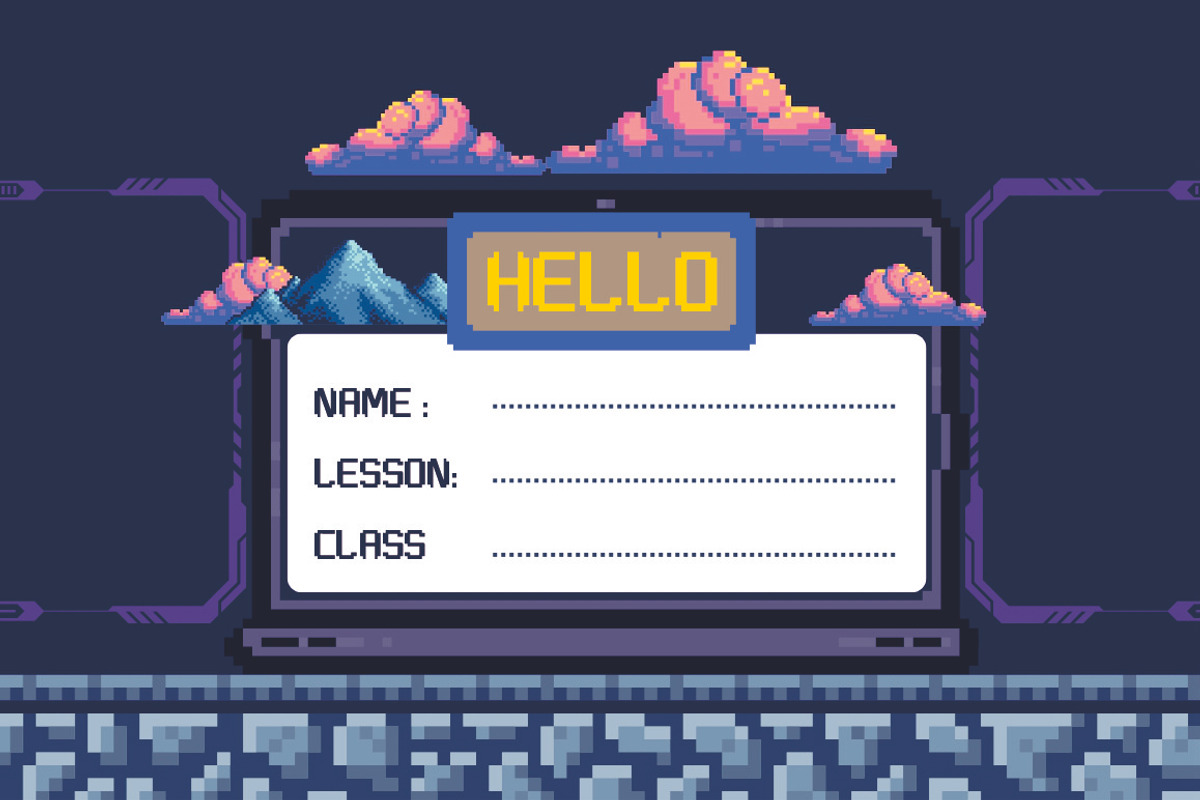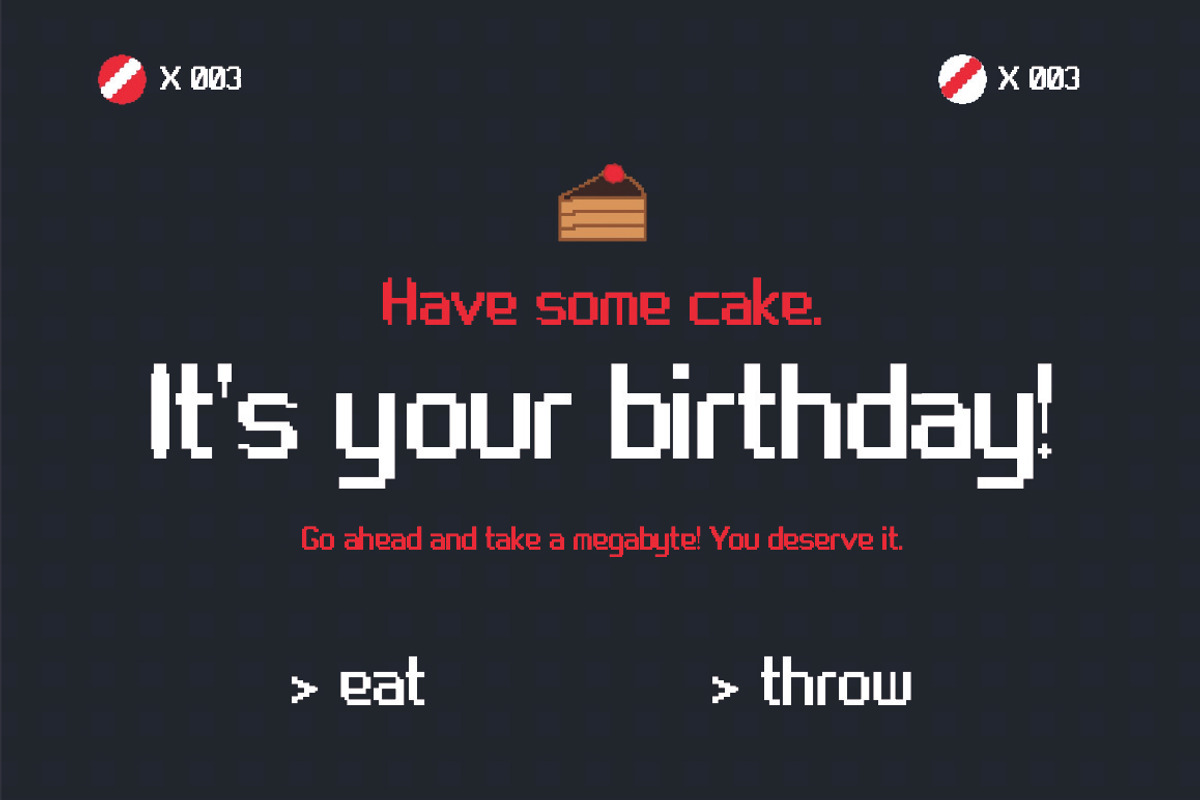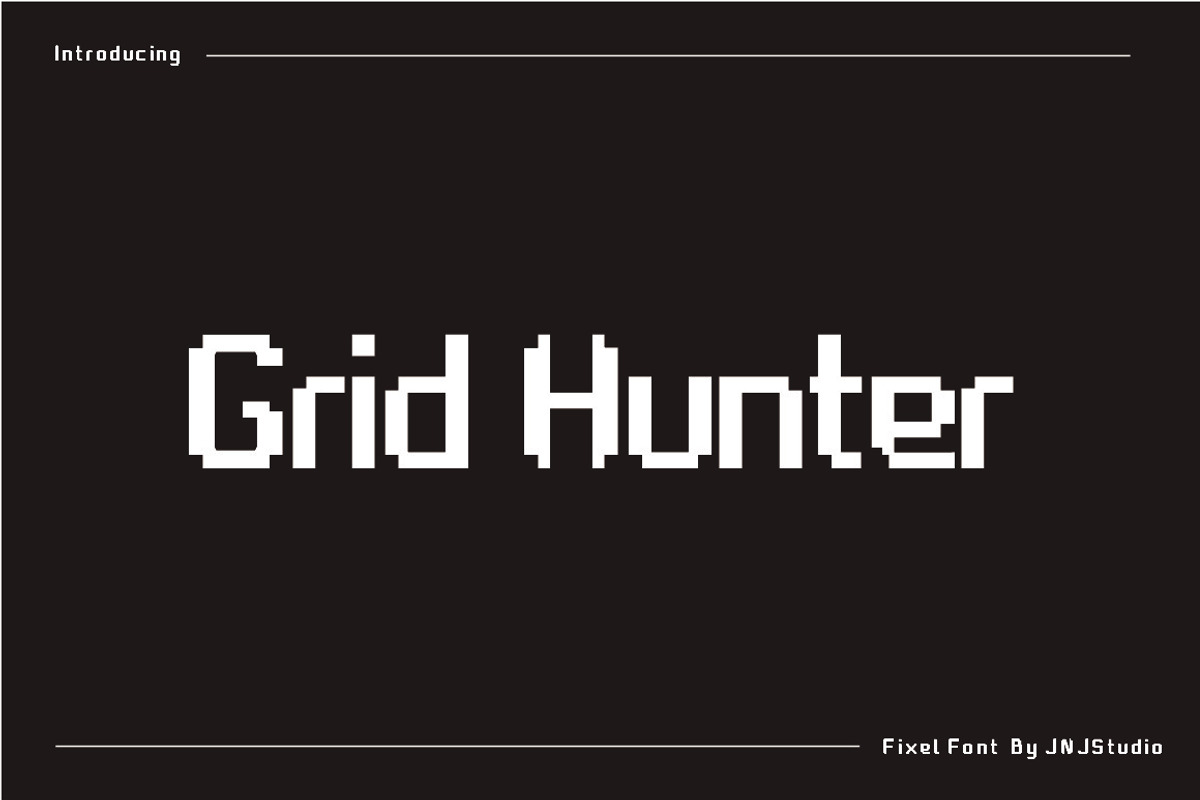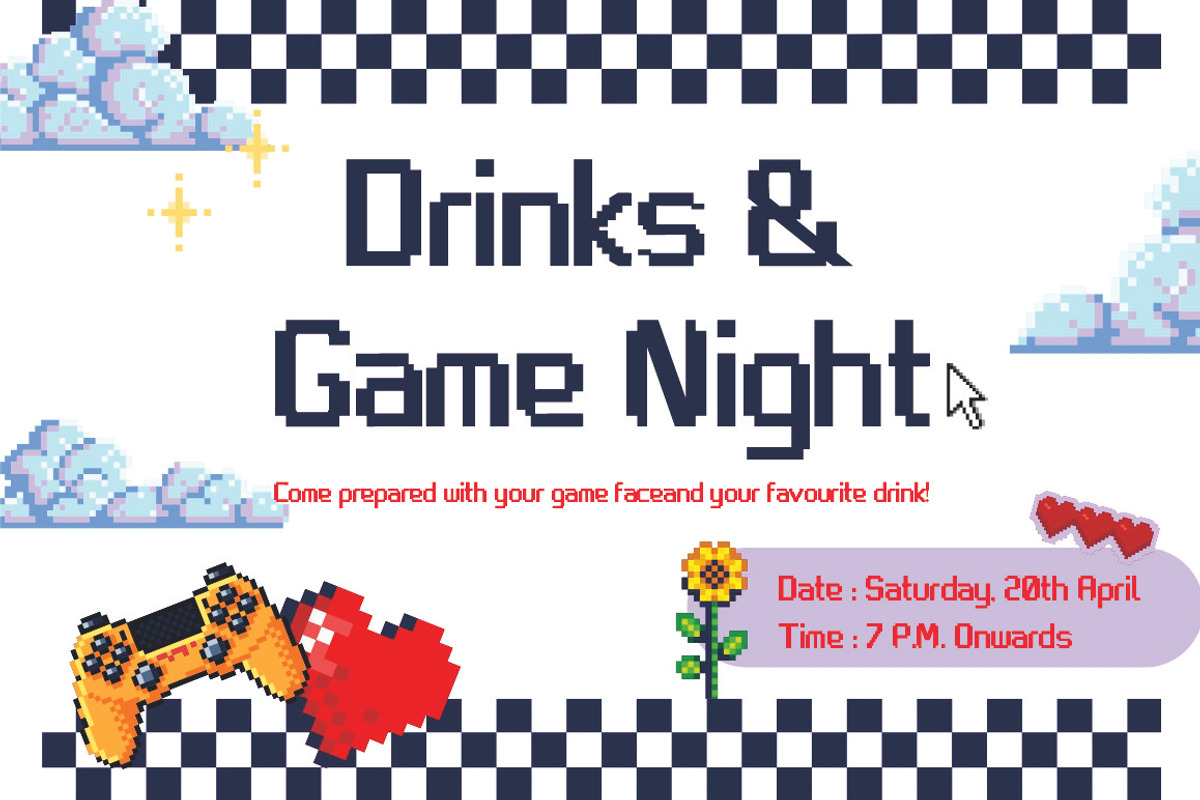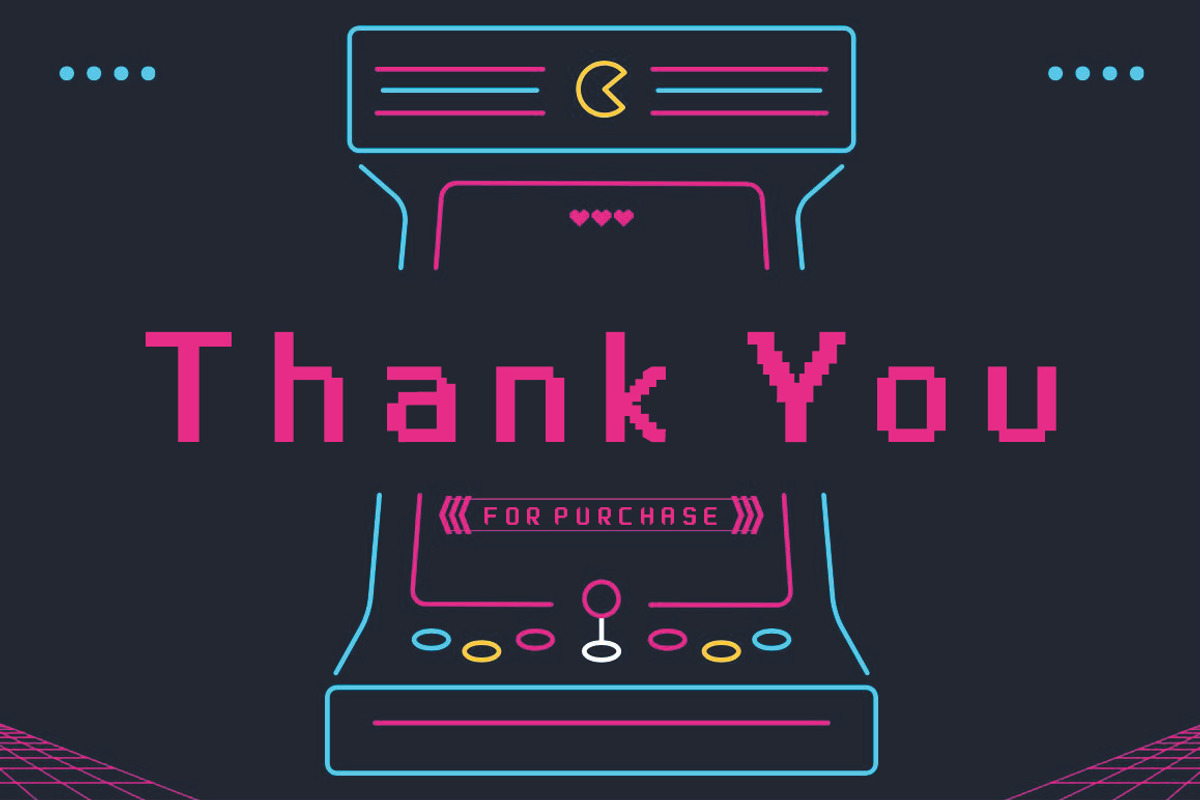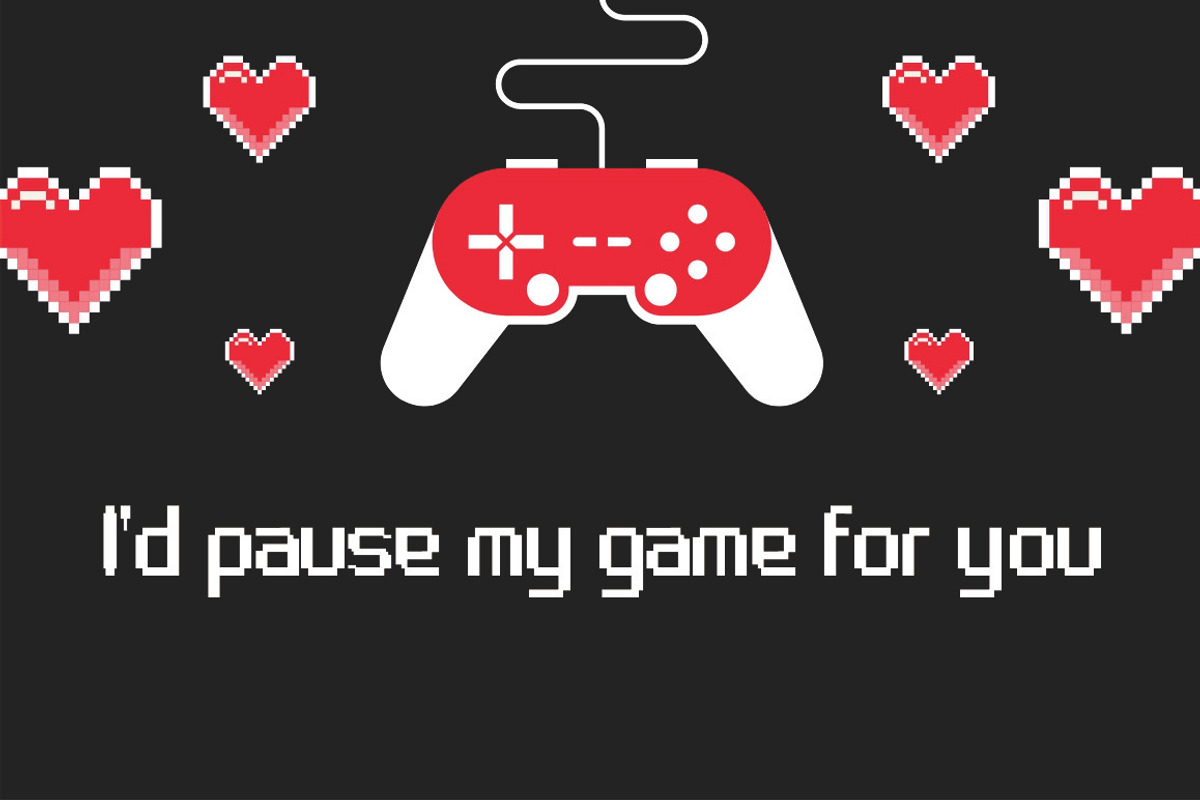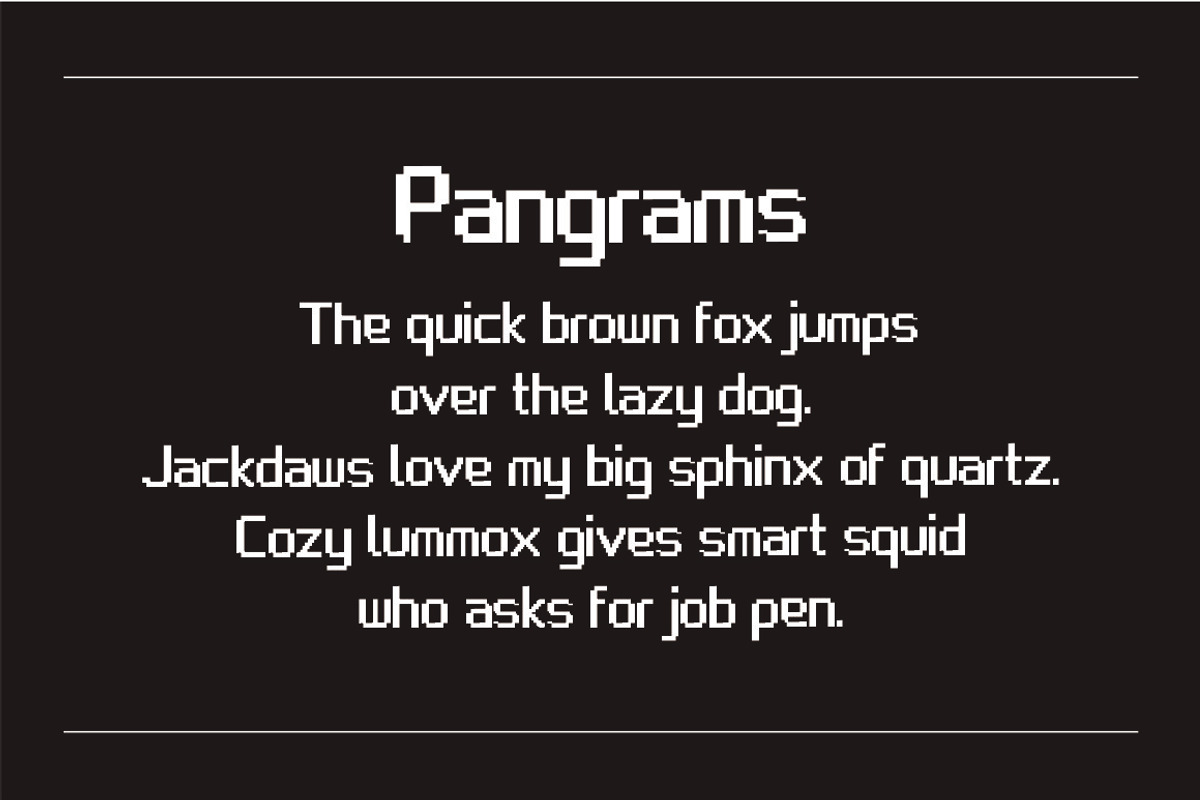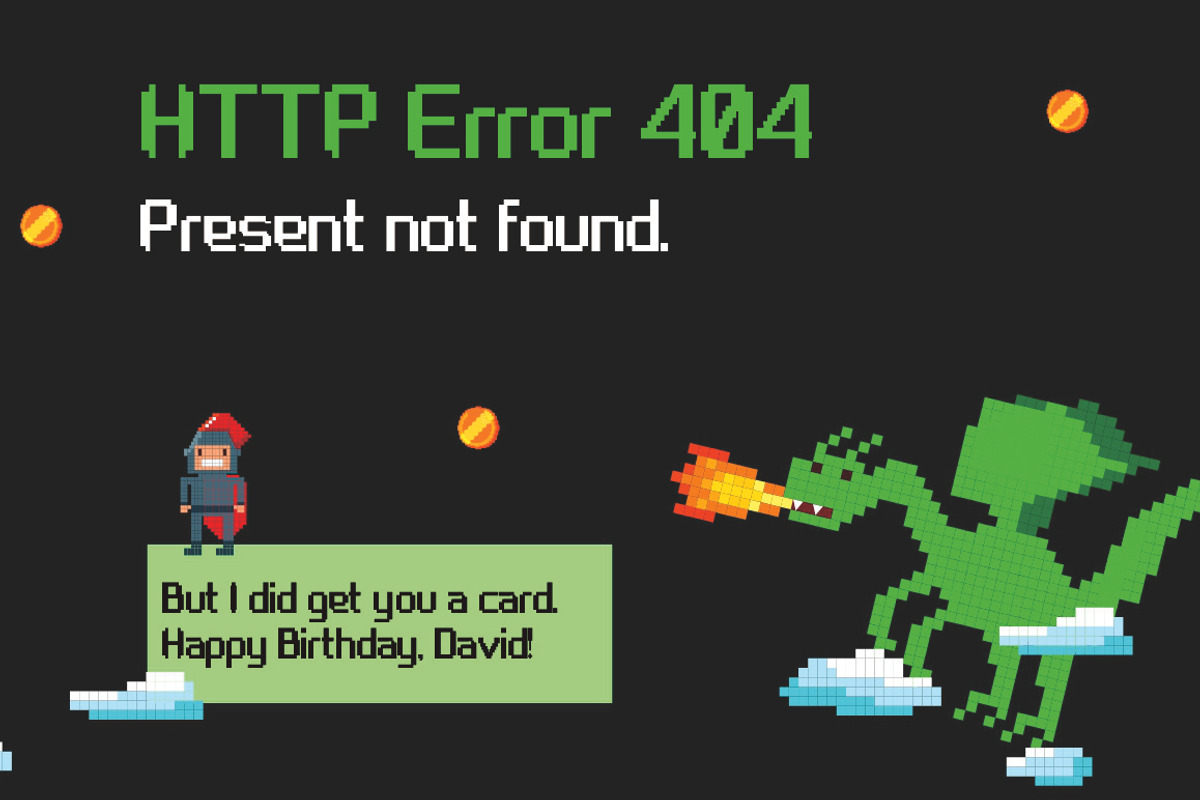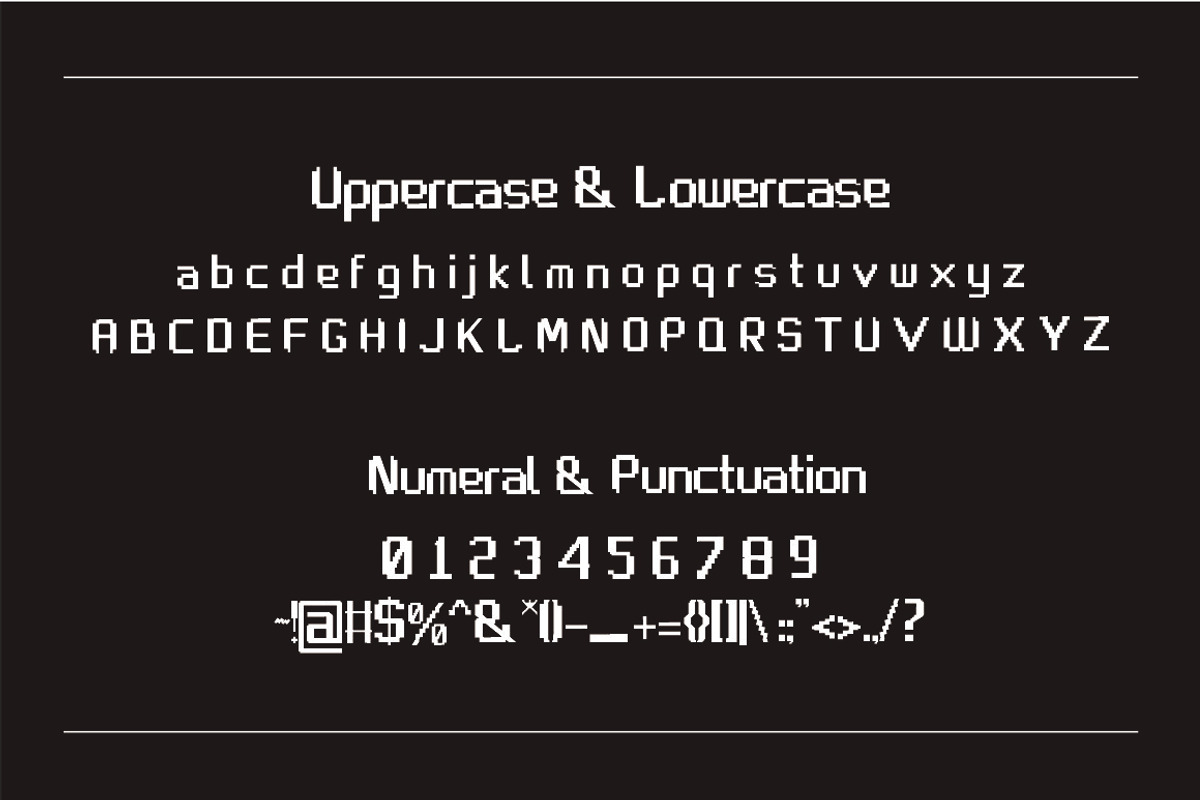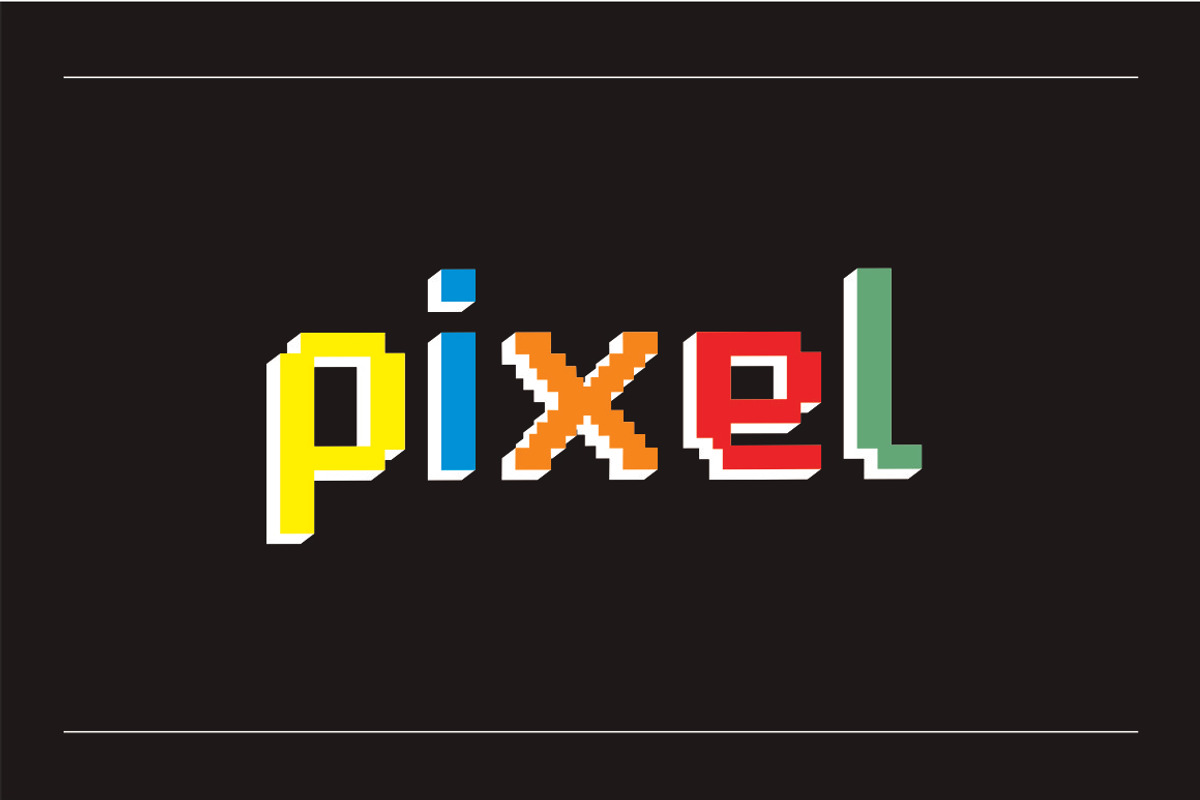
Grid Hunter Pixel Font
Grid Hunter is a bold pixel-style typeface inspired by retro arcade visuals and modern digital grids. Built with sharp edges and precise square geometry, this font captures the spirit of classic 8-bit and 16-bit games while maintaining a clean, structured look.
Designed for gamers, tech creatives, and futuristic branding, Grid Hunter delivers strong readability and a powerful visual impact. Its rigid pixel construction evokes the feeling of digital battles, cyber worlds, and high-score screens—making it perfect for game titles, esports logos, UI design, posters, and sci-fi themed projects.
Grid Hunter is not just a font—it’s a weapon for conquering the digital grid.